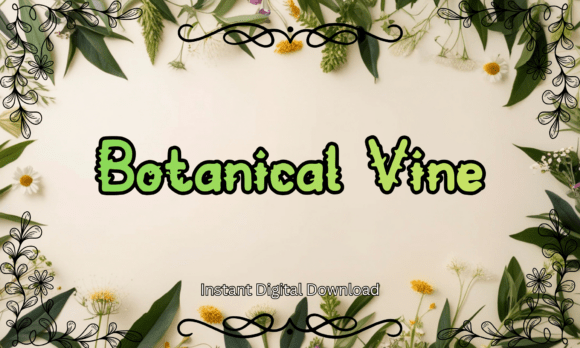
Add a Fresh Twist to Your Designs with Botanical Vine Font
I’ll never forget the time I was working on a nature-themed project for a client, and I just couldn’t find the right font to bring it all together. The design was supposed to be playful, yet elegant, and I wanted it to feel like a breath of fresh air. That’s when I stumbled upon Botanical Vine, a charming leafy display font that instantly captured the essence of the great outdoors. In this article, I’ll share my experience with this beautiful font, its features, and how you can make the most of it in your designs.
A Personal Review of Botanical Vine
- ✨ The playful, organic feel that instantly elevates any design
- ✅ The perfect blend of elegance and whimsy, making it versatile for various projects
- 🌿 The beautiful leafy details that add a natural touch to your designs
- 💡 The font’s ability to bring a sense of freshness and vitality to your work
While Botanical Vine is an amazing font, there are a few things to keep in mind:
- 🤔 It might not be the best choice for very small text sizes, as some details may get lost
- ⚠️ Some of the more intricate glyphs might not display perfectly on all devices or platforms
- Experiment with the OpenType features, such as stylistic alternates, to add variety to your text
- Explore the glyphs panel to find unique characters and ligatures
The Story Behind Botanical Vine
Botanical Vine was inspired by the intricate details of nature, particularly the way vines and plants intertwine. The designer aimed to capture the essence of the natural world and bring it into the digital realm. With its unique blend of elegance and playfulness, Botanical Vine is perfect for designers looking to add a fresh twist to their work.
| Font Name | Botanical Vine Font |
| Author | Pamlico Creations |
A: Botanical Vine is ideal for nature-themed designs, branding, and creative projects that require a playful yet elegant touch.
A: Yes, Botanical Vine supports OpenType features, including stylistic alternates, glyphs, and ligatures, allowing you to customize your text and add unique touches to your designs.